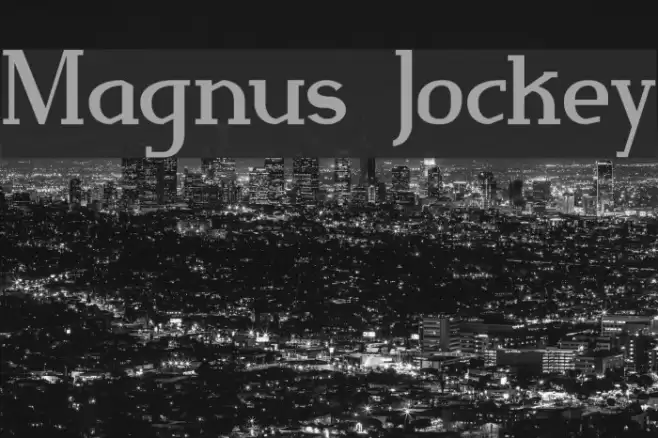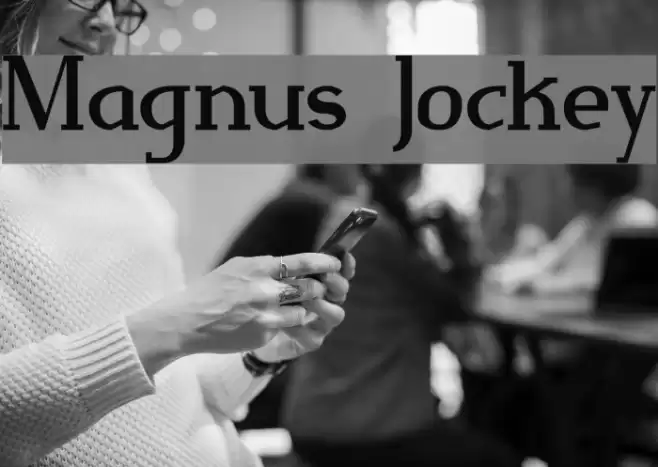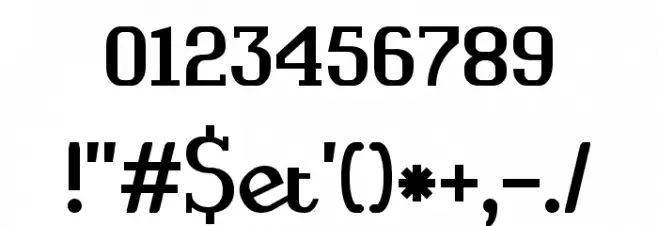
Magnus Jockey Font
Magnus Jockey Description
This font exhibits a bold and confident serif style, characterized by strong, thick strokes and a classic yet modern appeal. The uppercase letters are tall and commanding, while the lowercase letters maintain a balanced and readable form. The numerals are clear and distinct, making them suitable for various applications. Special characters are well-defined, adding versatility to the font's usage. The overall design is both elegant and robust, making it suitable for a wide range of design projects.
A bold serif font with strong strokes and a classic-modern appeal from Uncategorized fonts.
- Proposed Projects: Ideal for branding, editorial design, book covers, and formal invitations.
- Overall Style: Classic